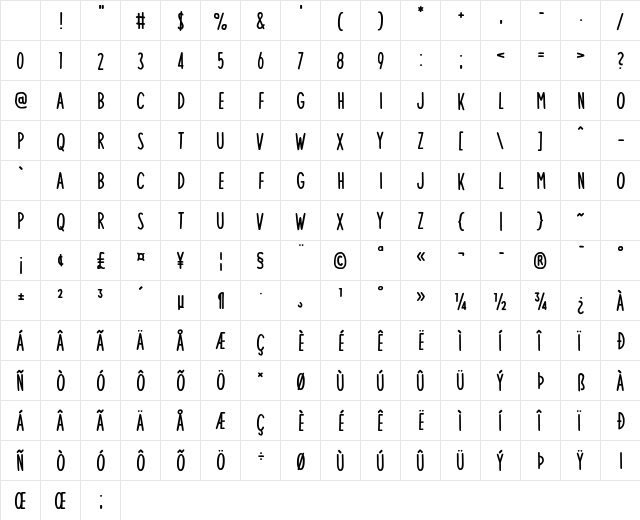
Complete Dangerless Liaisons Regular glyph index. Displaying only characters natively supported by Dangerless Liaisons Regular font.
Dangerless Liaisons is a composed and adaptable typeface that performs quietly and consistently across a wide range of design contexts.